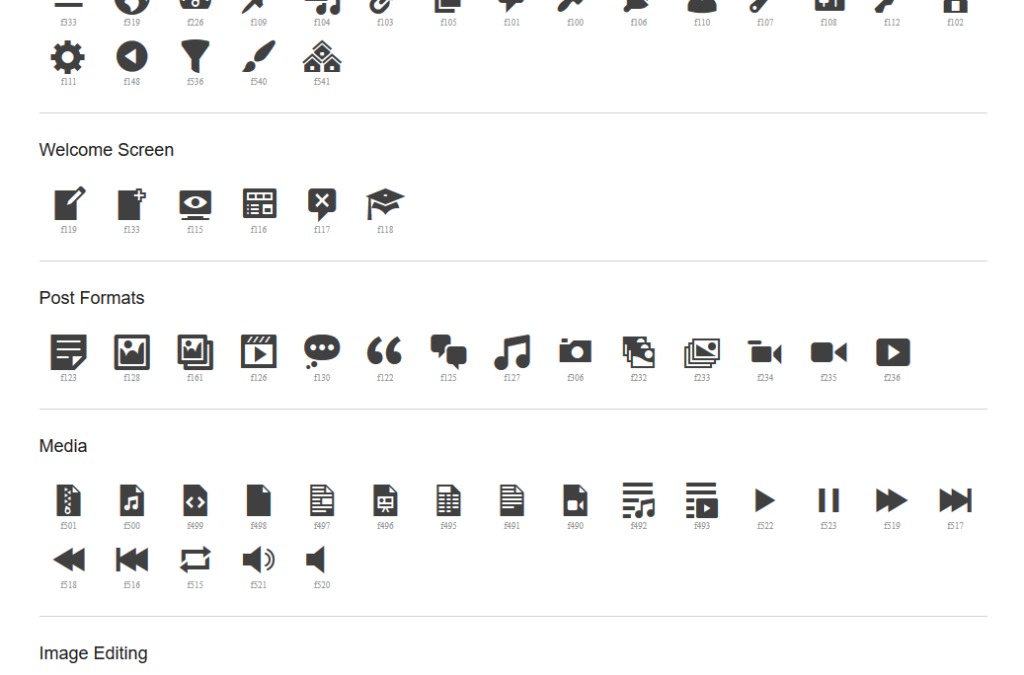
Icon fonts could be a very great tool for WordPress websites. They let you upload symbols and photographs on your web page with out slowing it down. That and different causes are why icon fonts have transform standard in recent times.
Should you aren’t positive about this subject, this weblog publish is right here that can assist you out. In it, you’re going to be told what icon fonts are and why it’s a good suggestion to make use of them. After that, you’re going to get step by step directions on how you can upload icon fonts on your WordPress web page, each manually and by means of plugins.
What are Icon Fonts and Why Use Them?
Ahead of we speak about how you can use icon fonts in WordPress, let’s first identify what they even are.
They Comprise Symbols As a substitute of Letters
Because the title suggests, icon fonts are typefaces identical to different custom fonts. Then again, as a substitute of letters and numbers, they include symbols and pictograms. As a question of reality, each WordPress web page is provided with an icon font through default. It is known as Dashicons and gives the symbols within the WordPress major menu.
Then again, there are much more choices in the market. Maximum of them come with recurrently used internet icons like buying groceries carts, obtain buttons, social media trademarks and much more. Libraries steadily include loads of various choices, a lot of them unfastened. Listed here are numerous examples:
- Font Awesome — A library with greater than 1,300 unfastened symbols. They span quite a lot of subjects from arrows to well being, training, manufacturers and extra.
- Genericons — A number of generic icons made through Automattic. You’ll be able to to find the information on Github.
- Fontello — This provider combines a number of icon fonts in a single position and lets you create libraries containing handiest the ones symbols you want, saving house within the procedure.
You’ll be able to to find further icon fonts here and in this article. You’re going to learn to use them in a 2d.
Advantages of The use of Icon Fonts
That handiest leaves the query, why would you employ icon fonts? Why no longer move with photographs as a substitute? Seems, against this to conventional visuals, icon fonts be offering a number of advantages:
- As vector photographs, they scale to any length with out lack of high quality. A super characteristic for responsive design.
- Like different internet textual content, you’ll be able to simply manipulate icon fonts by means of CSS. For instance, you’ll be able to exchange their length and hues, upload drop-shadows, rotate them and much more.
- They let you retailer many symbols inside of a unmarried record. This reduces HTTP requests compared to loading a number of photographs.
- Icon fonts don’t considerably build up web page weight, particularly if you happen to use a library with handiest the icons you want. Nice information on your page loading time!
Alright, now that you already know why this can be a just right thought to make use of icon fonts in WordPress, let’s move over how you’ll be able to upload them on your web page.
Tips on how to Upload Icon Fonts in WordPress Manually
We will be able to first quilt how you can come with icon fonts in WordPress manually. That is the most efficient answer when you’re making a theme the place you need to make use of icon fonts. It means that you can paintings with out a plugin {that a} consumer or shopper may inadvertently exchange or delete. There also are two alternative ways to reach this.
For all of the instructional, we will be able to use the aforementioned Font Awesome. It’s the preferred library and has a large number of symbols unfastened to make use of. Then again, the rules of what you might be about to learn how to practice to different icon fonts as neatly.
Manner 1: Enqueue the Font Remotely
Icon fonts will also be added on your web page like another customized font: through loading them from a far flung server. All you want for that’s the cope with the place they’re hosted. Font Superior gives their very own CDN for that, which you’ll be able to to find and configure here.
After you have the cope with, merely upload the font on your web page with the next piece of code for your theme’s purposes.php record:
WordPress will then load Font Superior from the far flung location onto your web page.
Manner 2: Host the Fonts Your self
However, you’ll be able to additionally host the font information by yourself server. This is a just right thought to scale back HTTP requests or on account of GDPR related concerns.
Step one for this system is to obtain the font and unzip it. For Font Superior, you to find the obtain hyperlink within the same place as the CDN address, handiest additional down the web page. As soon as in your onerous force, unzip the record and stir up your FTP shopper (for instance, FileZilla). Move on your energetic theme’s folder below wp-content > subject matters. There, create a brand new listing and provides it a definite title like fonts, then add the whole lot you simply downloaded into it. After that, load the font into your web page with this piece of code inside of purposes.php: